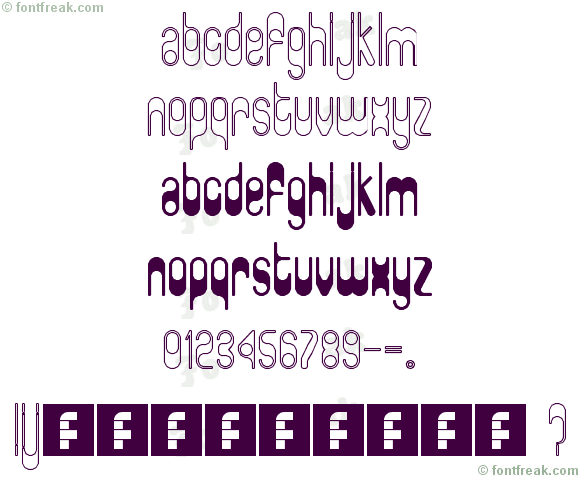
Werner Paperclip Regular
About Werner Paperclip
Werner Paperclip by Wilson Thomas is a distinctive display font that combines a playful aesthetic with a touch of professionalism. As a freeware typeface, it offers an accessible option for those looking to enhance their design projects without breaking the bank. The font features a unique blend of rounded and angular forms, striking a balance that captures attention while remaining legible. With a medium stroke weight and minimal contrast, Werner Paperclip exhibits a friendly demeanor, making it suitable for a variety of creative applications.
Visually, the font is characterized by its slightly irregular shapes, which evoke a sense of handcrafted charm. The spacing is well-considered, allowing for easy reading while maintaining an engaging visual flow. Decorative elements are subtly integrated into the letterforms, giving it a whimsical yet sophisticated appearance. This quality makes Werner Paperclip an excellent choice for use cases such as wedding invitations, where a personal touch is desired; restaurant menus, to create an inviting atmosphere; branding for artisanal products, where uniqueness is key; and event posters, where it can convey excitement and creativity.
Targeting graphic designers, small business owners, and content creators, Werner Paperclip is versatile enough to be used across various platforms, from digital to print. The font’s unique character sets it apart from more conventional typefaces, making it an ideal choice for projects that require a distinctive flair. The combination of its charming design and practical usability makes the Werner Paperclip font free download an appealing option for anyone looking to infuse their work with personality and style. In a world where first impressions matter, this font stands out as a perfect way to convey creativity and warmth in any design endeavor.